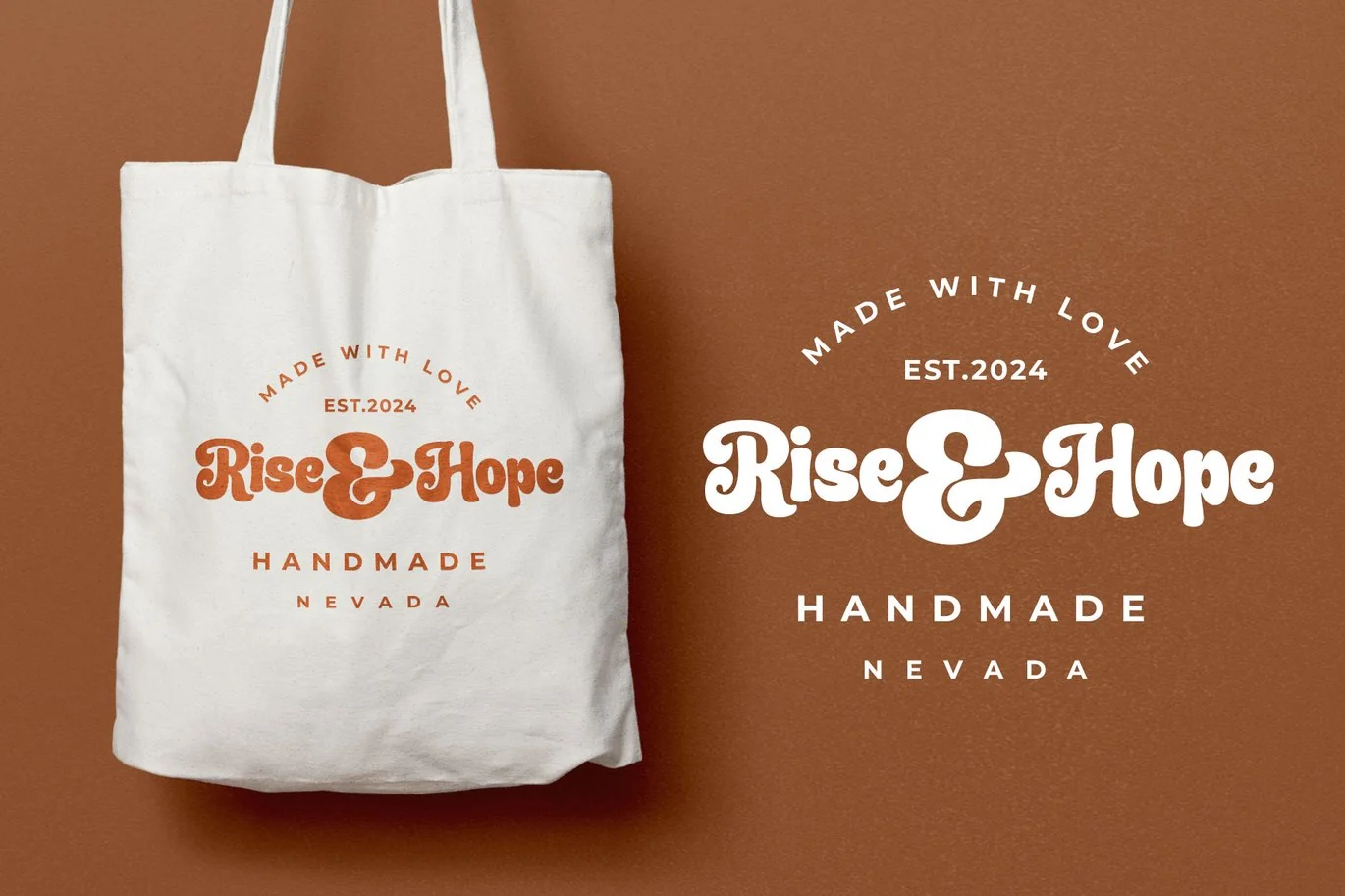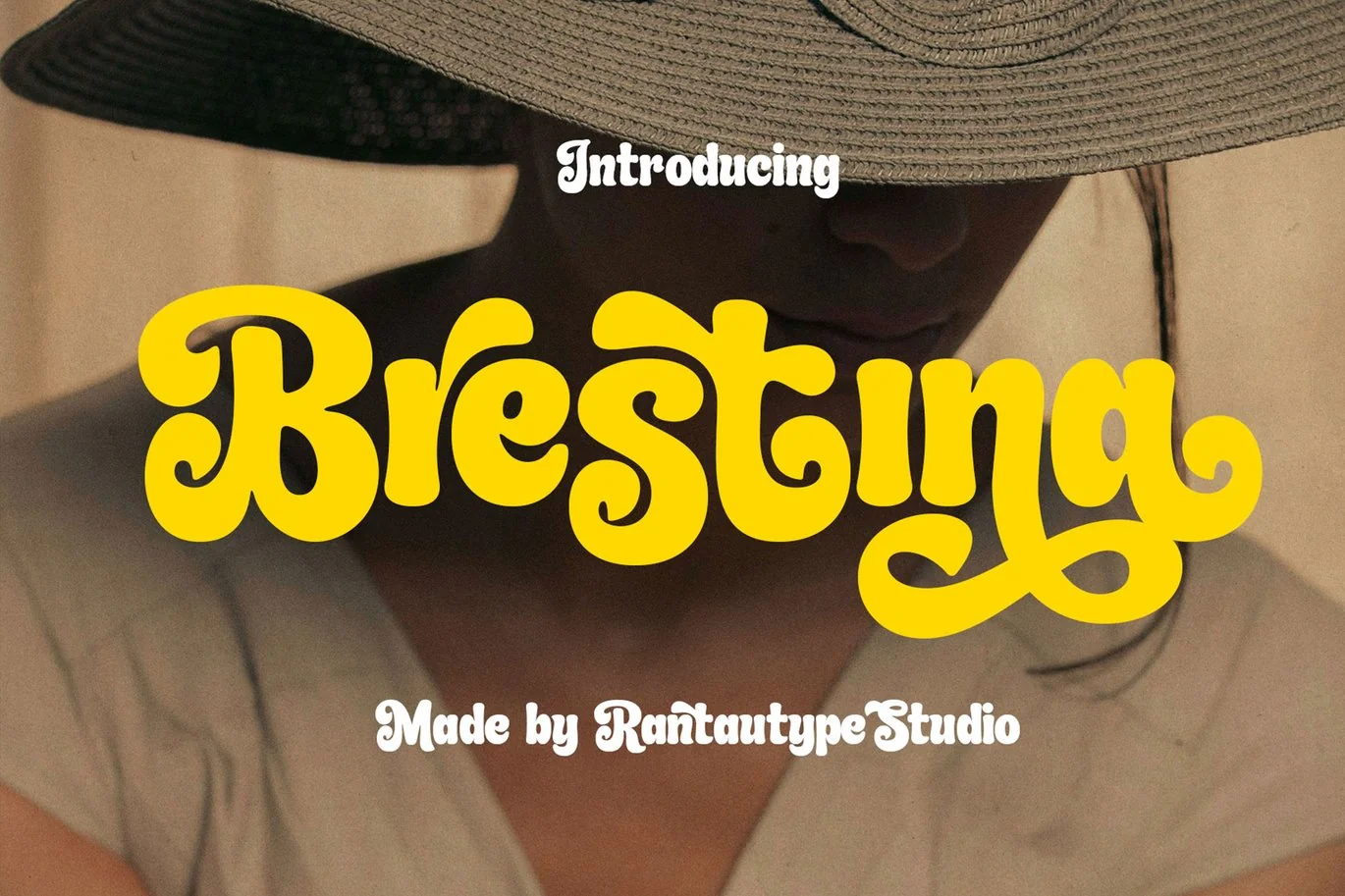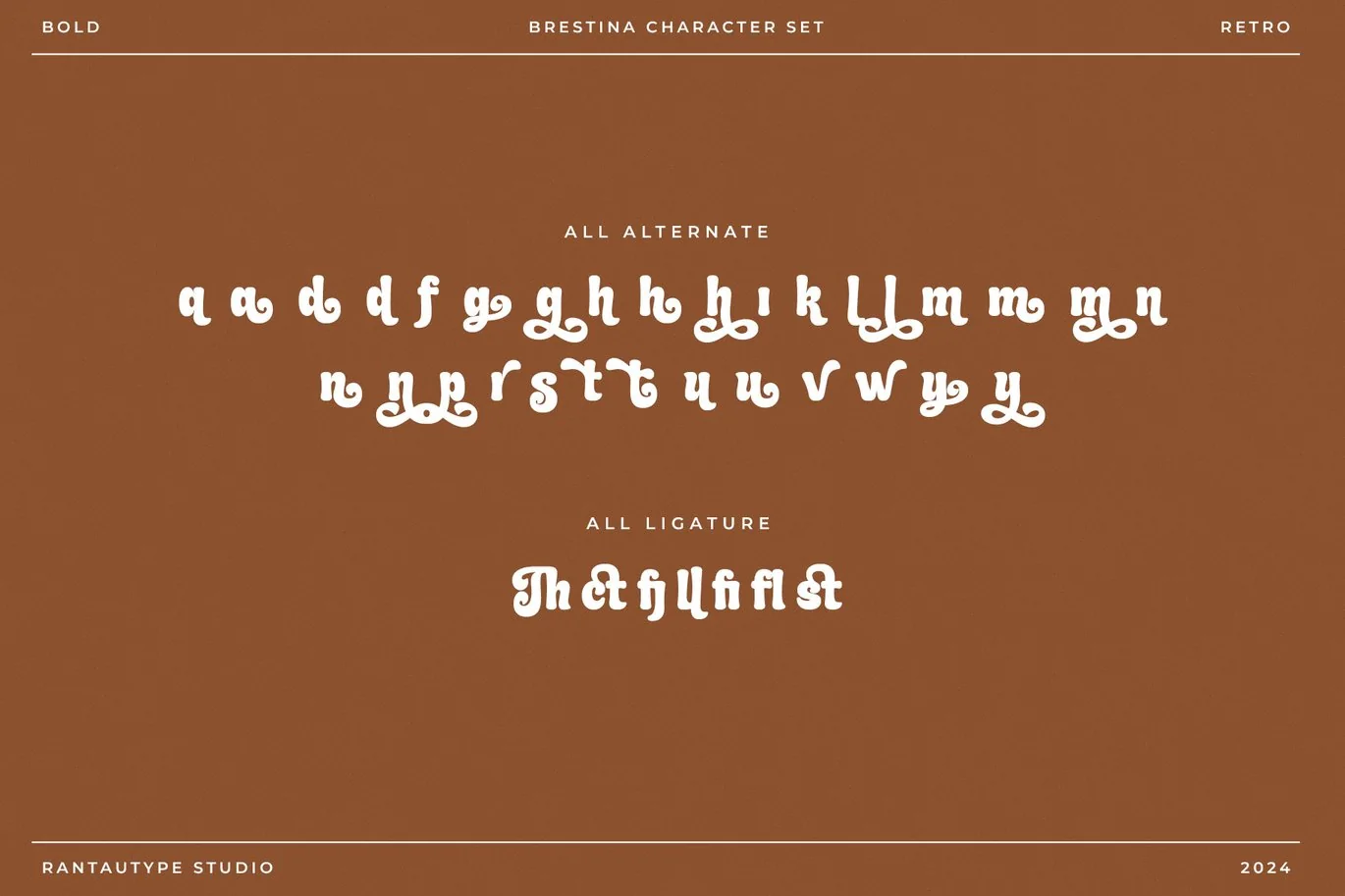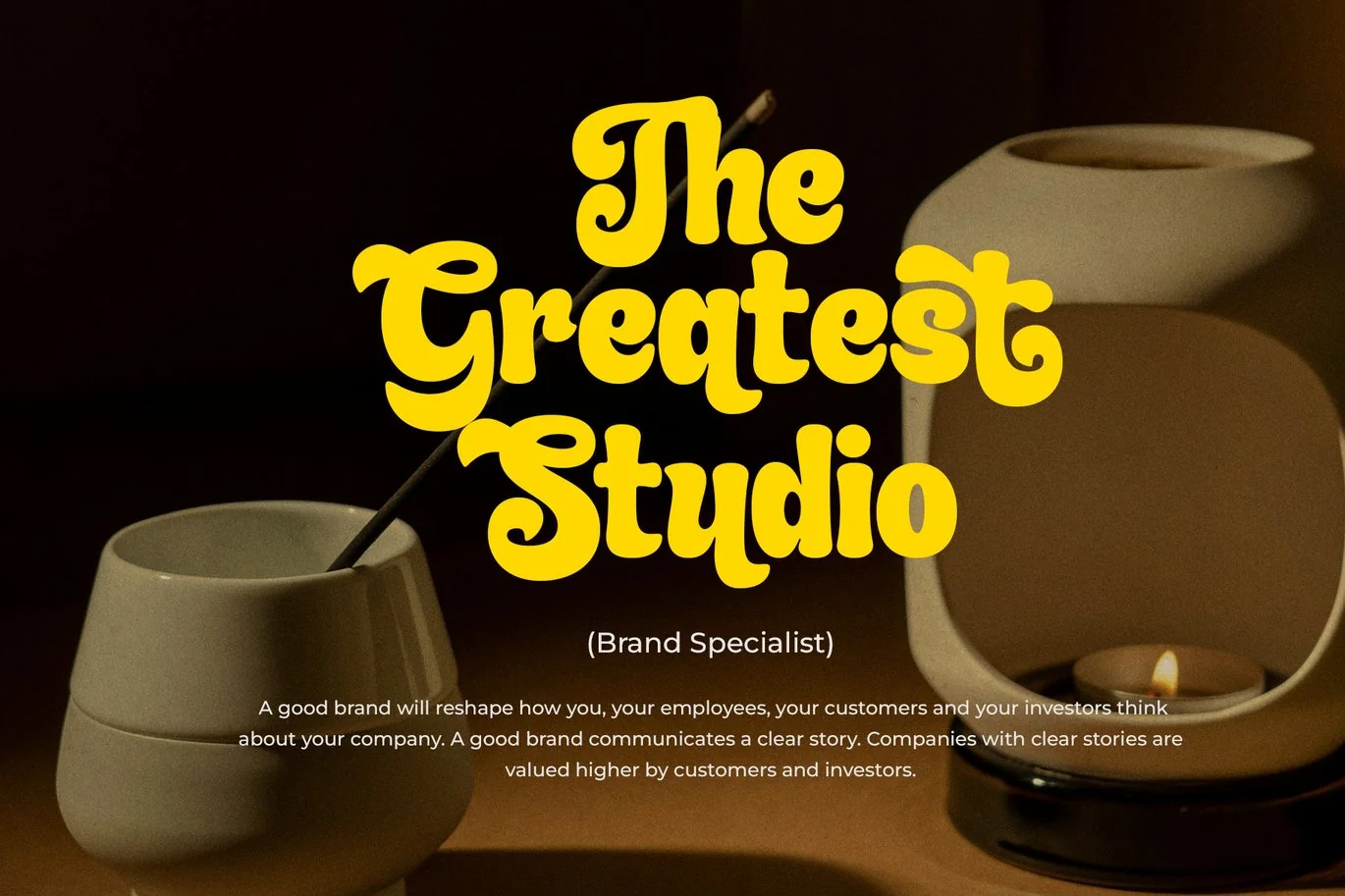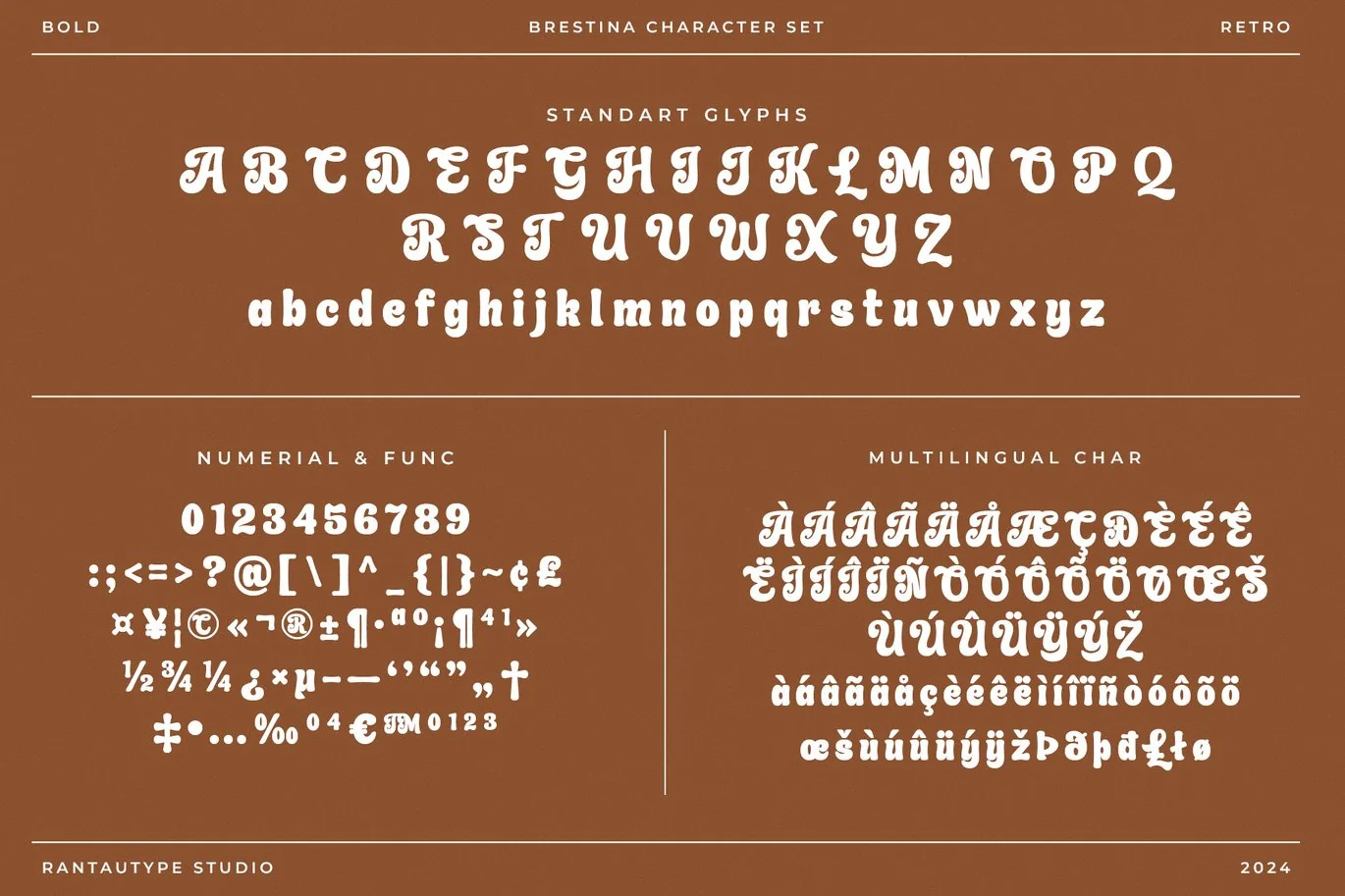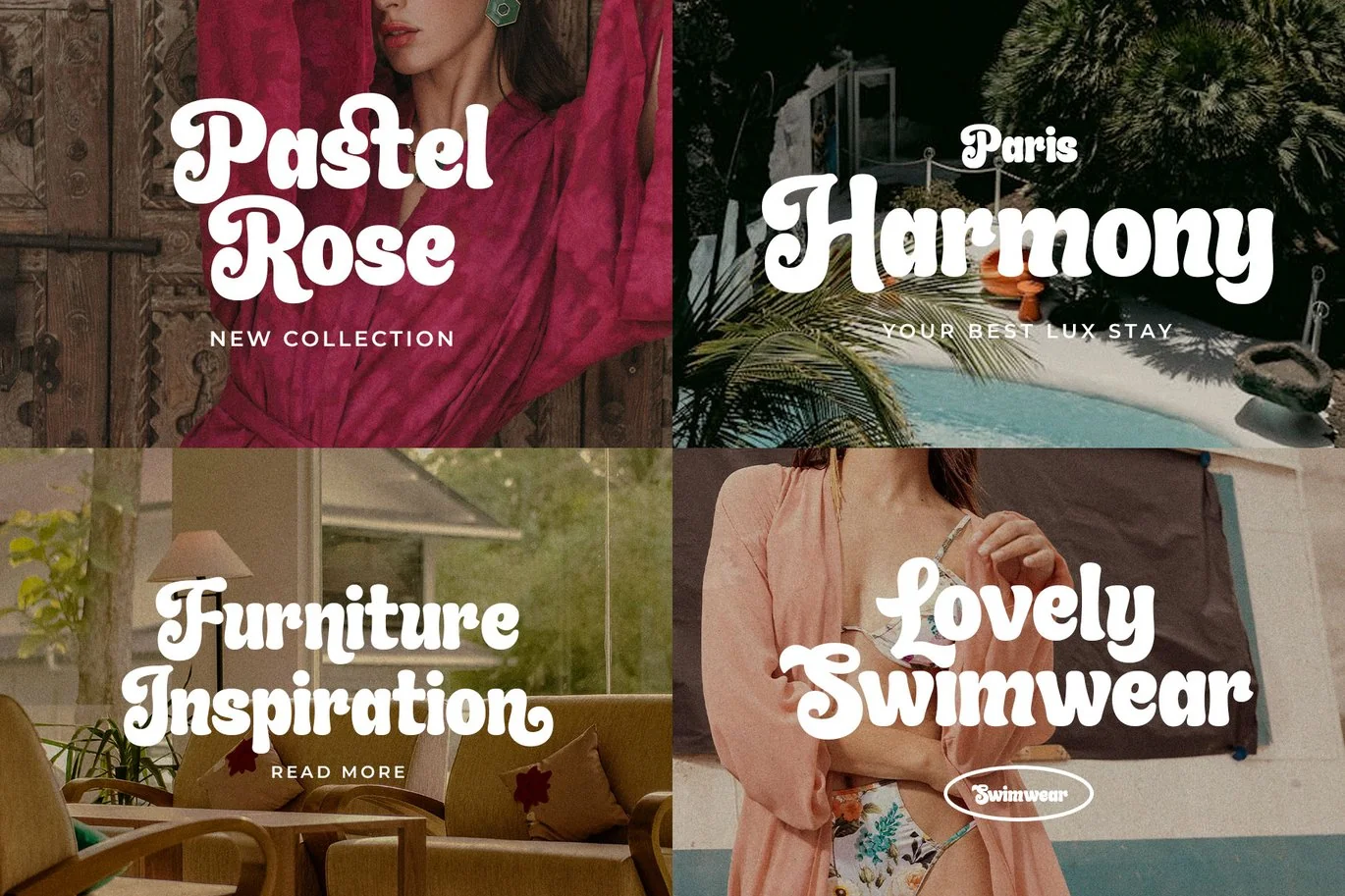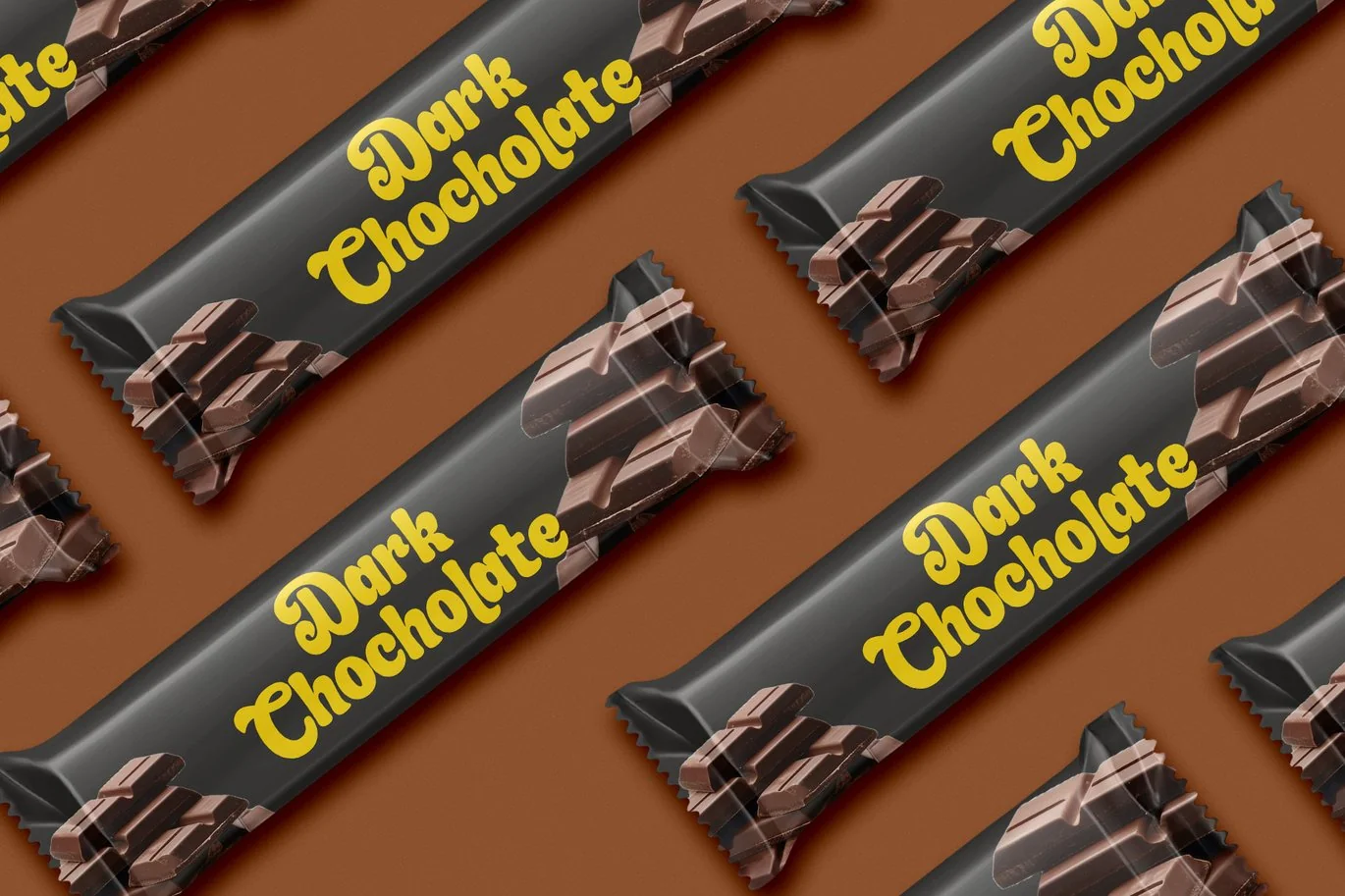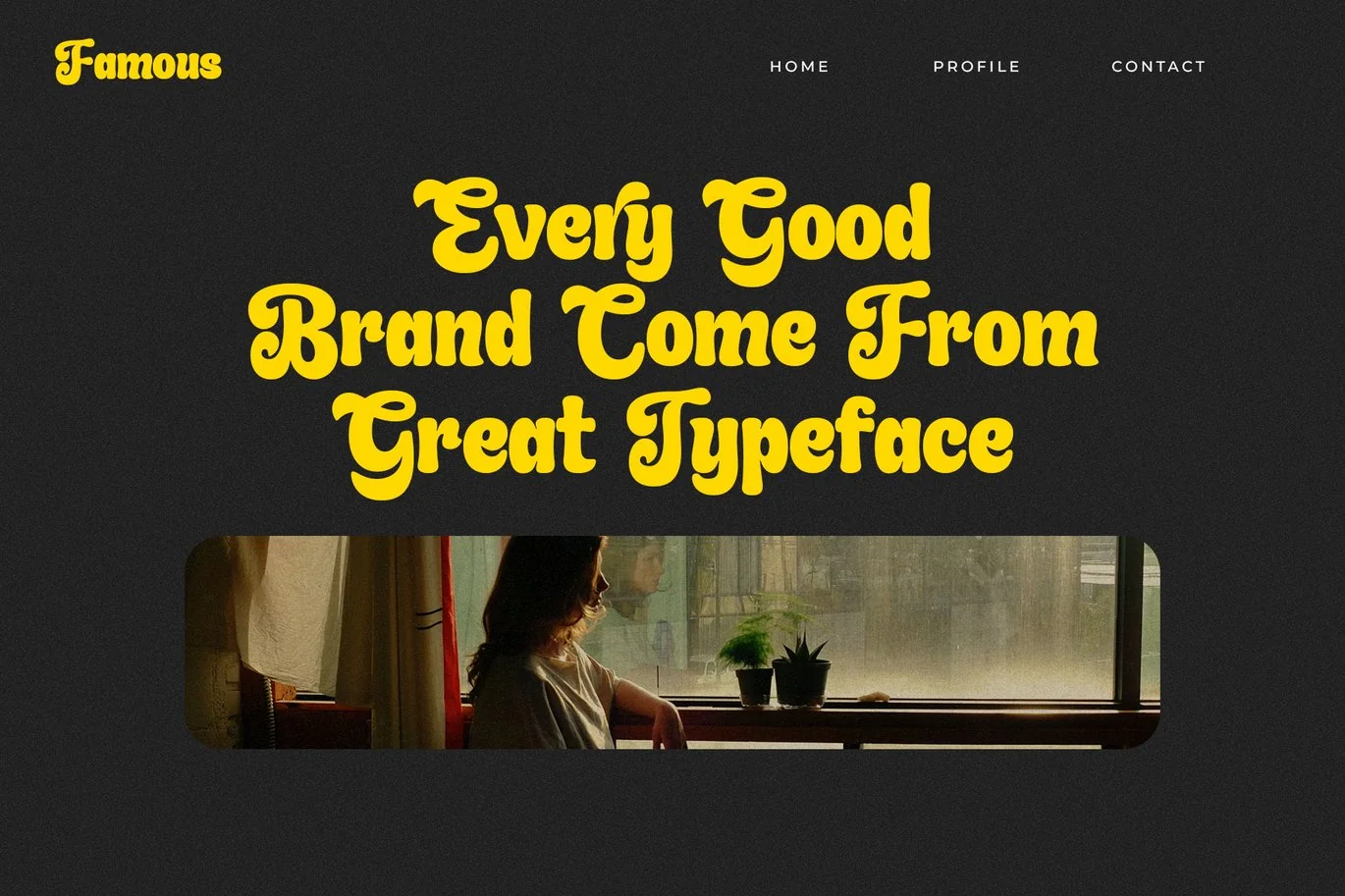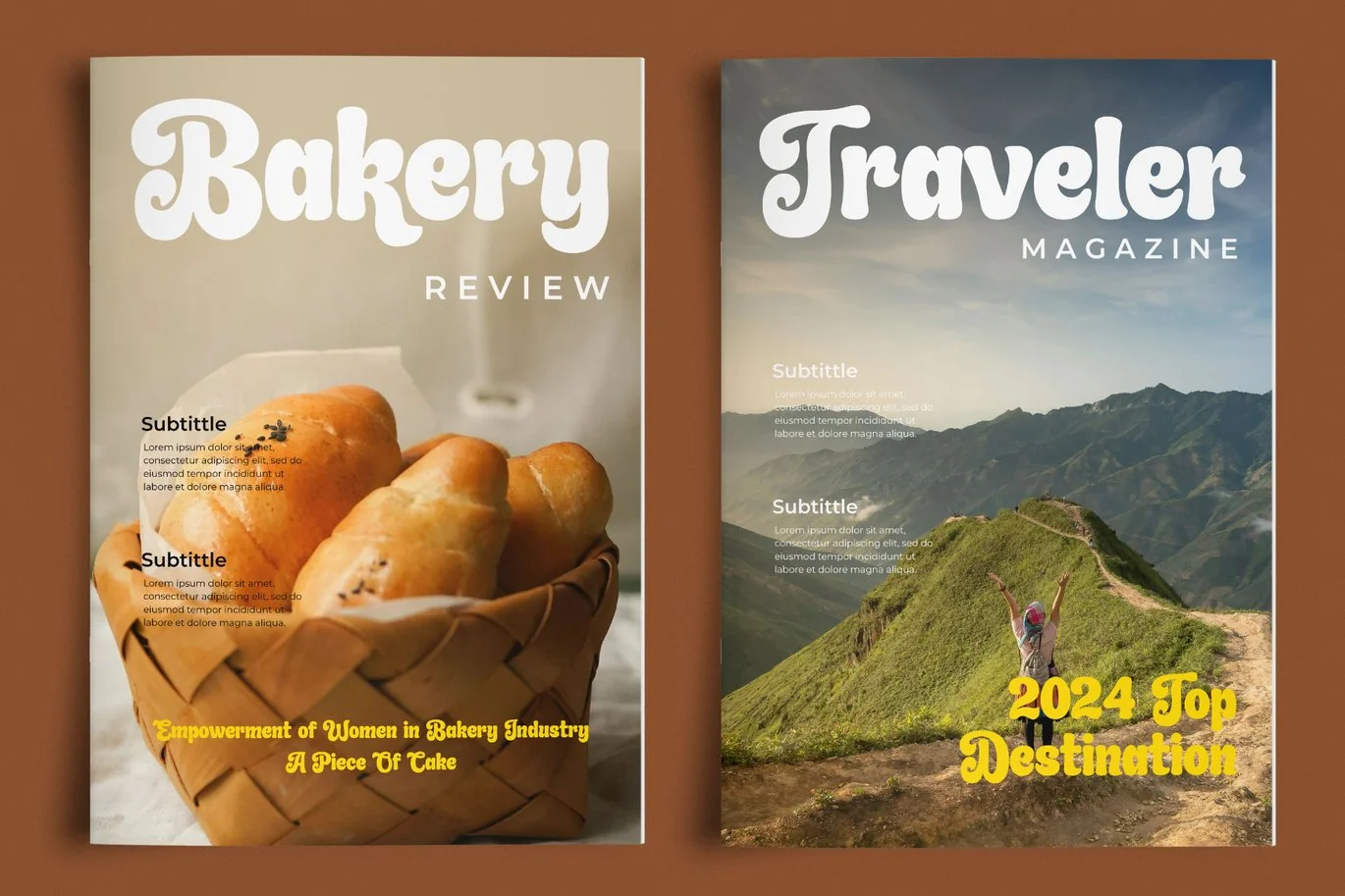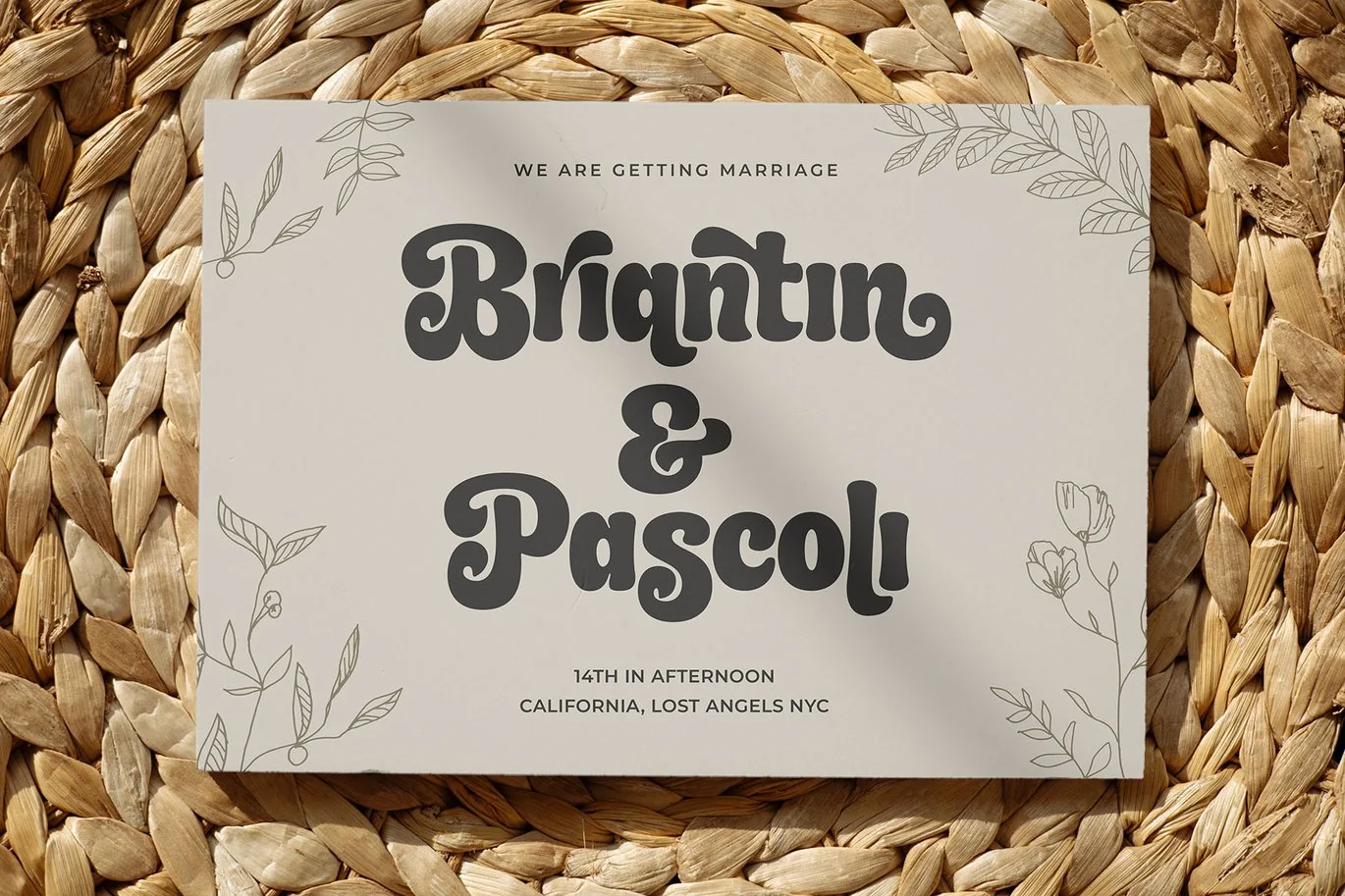
Brestina Retro Display Font
Brestina is retro font with nostalgia capture. Brestina come with rounded edge and bold character make your deseign project more playful and natural. Brestina is a perfectly choice for any creative endeavor, chic, lifestyle design such as logos, advertisements, stationery, branding project, display and magazine, invitation, corporate brand, product design, label, business project and many other project with retro touch.
- Standart Glyphs
Fonts include Multilingual Character for: Afrikaans, Albanian, Asu, Basque, Bemba, Bena, Breton, Chiga, Cornish, Dutch, English, Estonian, Filipino, Finnish, Friulian, Galician, Gusii, Indonesian, Irish, Italian, Kabuverdianu, Kalenjin, Kinyarwanda, Luo, Luxembourgish, Luyia, Machame, Makhuwa-Meetto, Makonde, Malagasy, Manx, Morisyen, North, Ndebele, Nyankole, Oromo, Portuguese, Quechua, Romansh, Rombo, Rundi, Rwa, Samburu, Sango, Sangu, Scottish, Gaelic, Sena, Shambala, Shona, Soga, Somali, Spanish, Swahili, Swedish, Swiss, German.